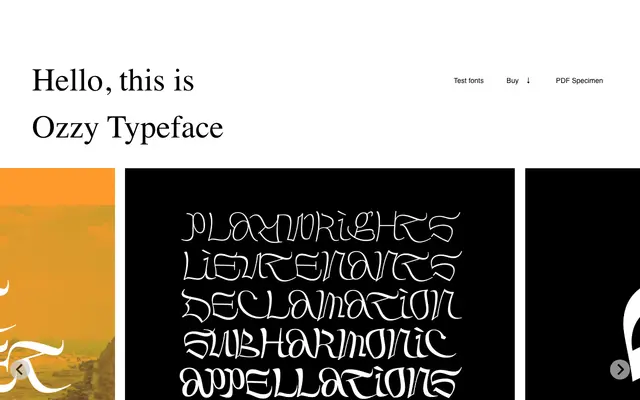
Ozzy
A headline typeface drawing on Arabic Kufic, Chinese seal script and 1960s album-cover lettering for an unpredictably idiosyncratic Latin alphabet.
Named after Shelley's poem Ozymandias, the typeface reconstructs its letters from the ruins of ancient scripts, blending Arabic Kufic geometry and Chinese seal script with the swollen curves of Sixties record sleeves and American brand logotypes. The result is sharp and graphic yet with an organic sway to its forms, making it suited to editorial headlines or brand identity work where legibility can afford to bend. Eight styles are available, covering the Latin script with Polish diacritic support.
Ozzy is a display typeface drawing on Arabic Kufic script, Chinese seal script and 1960s decorative lettering traditions, producing idiosyncratic headline forms with no conventional text usage.